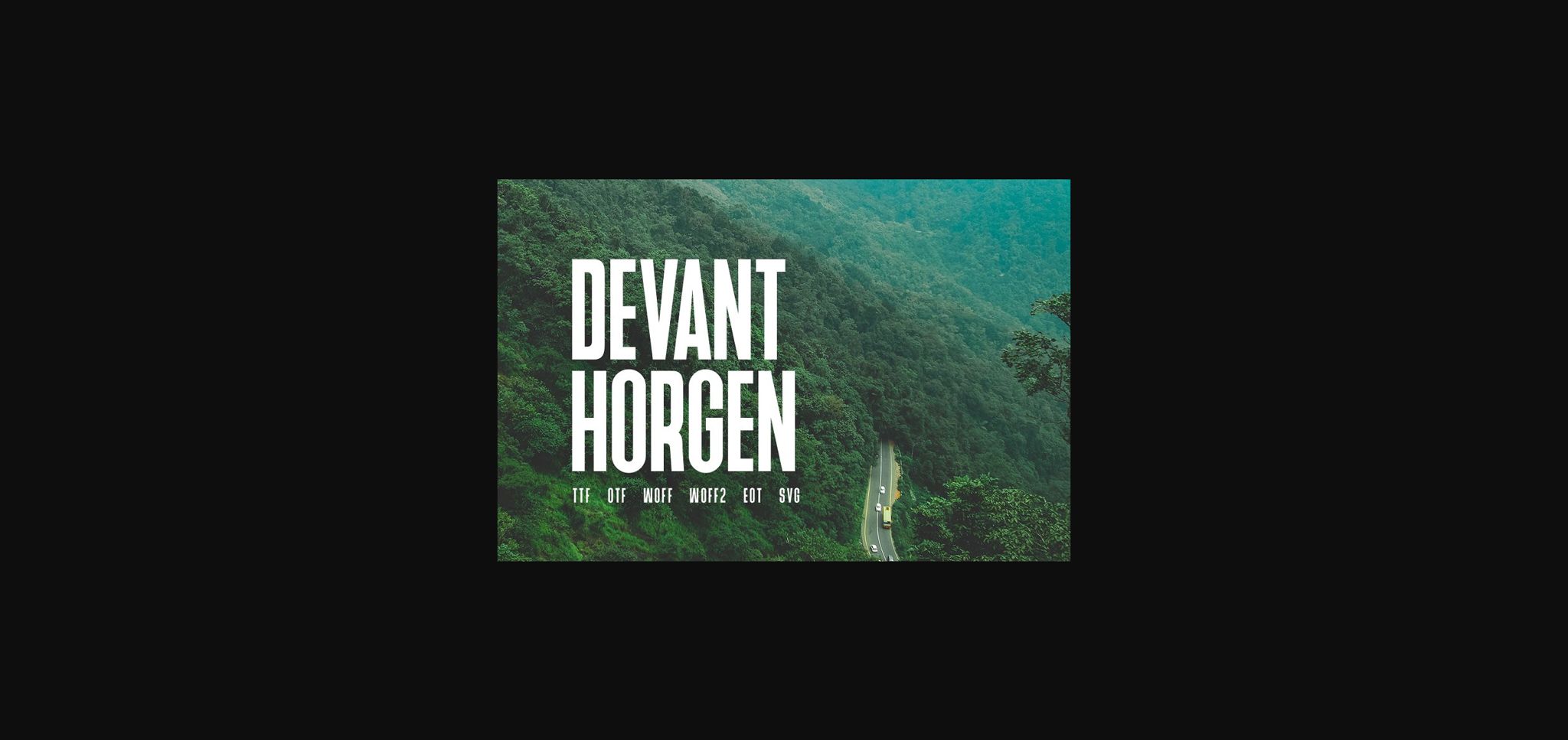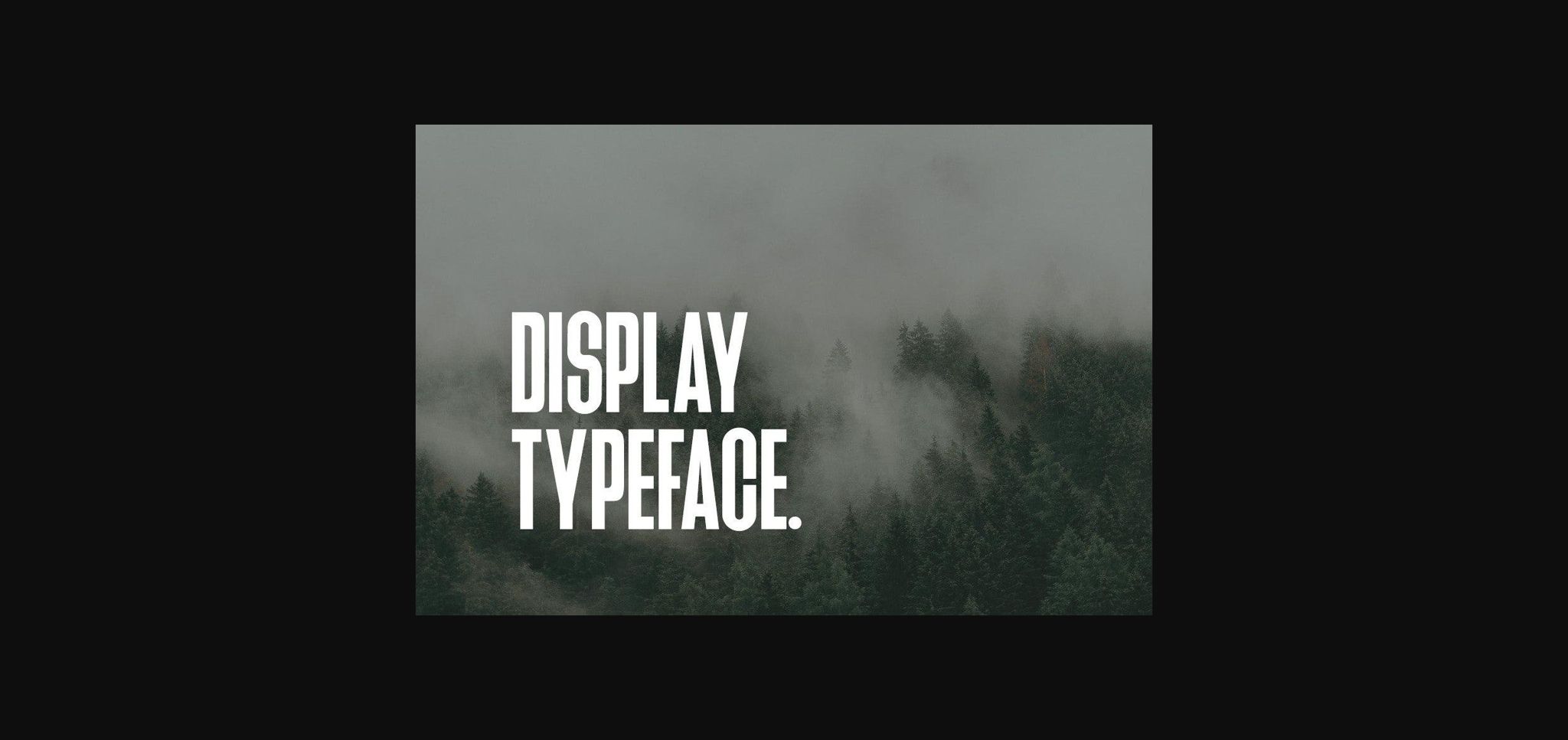
Devant Horgen Font
About Devant Horgen Font
Devant Horgen is a minimal and neat sans serif font. It can easily be matched to an incredibly large set of projects, so add it to your creative ideas and notice how it makes them stand out!